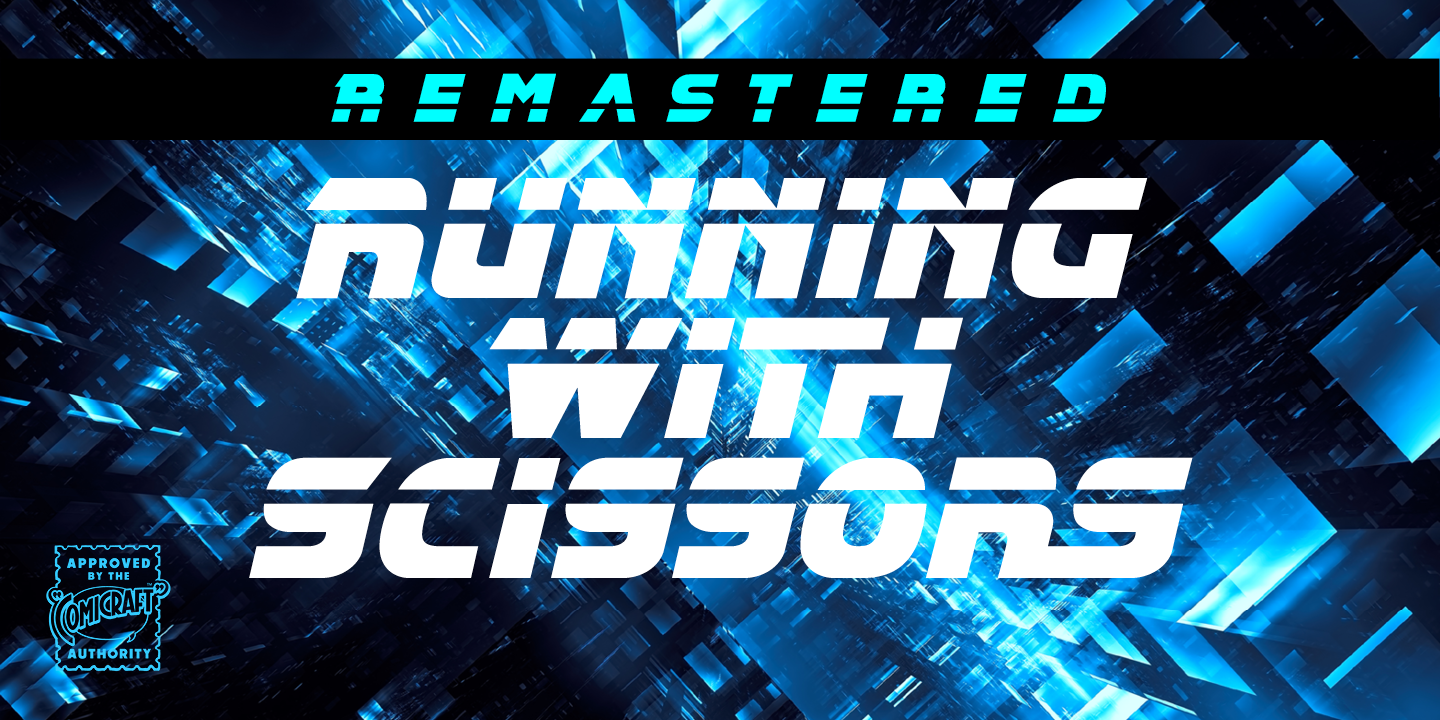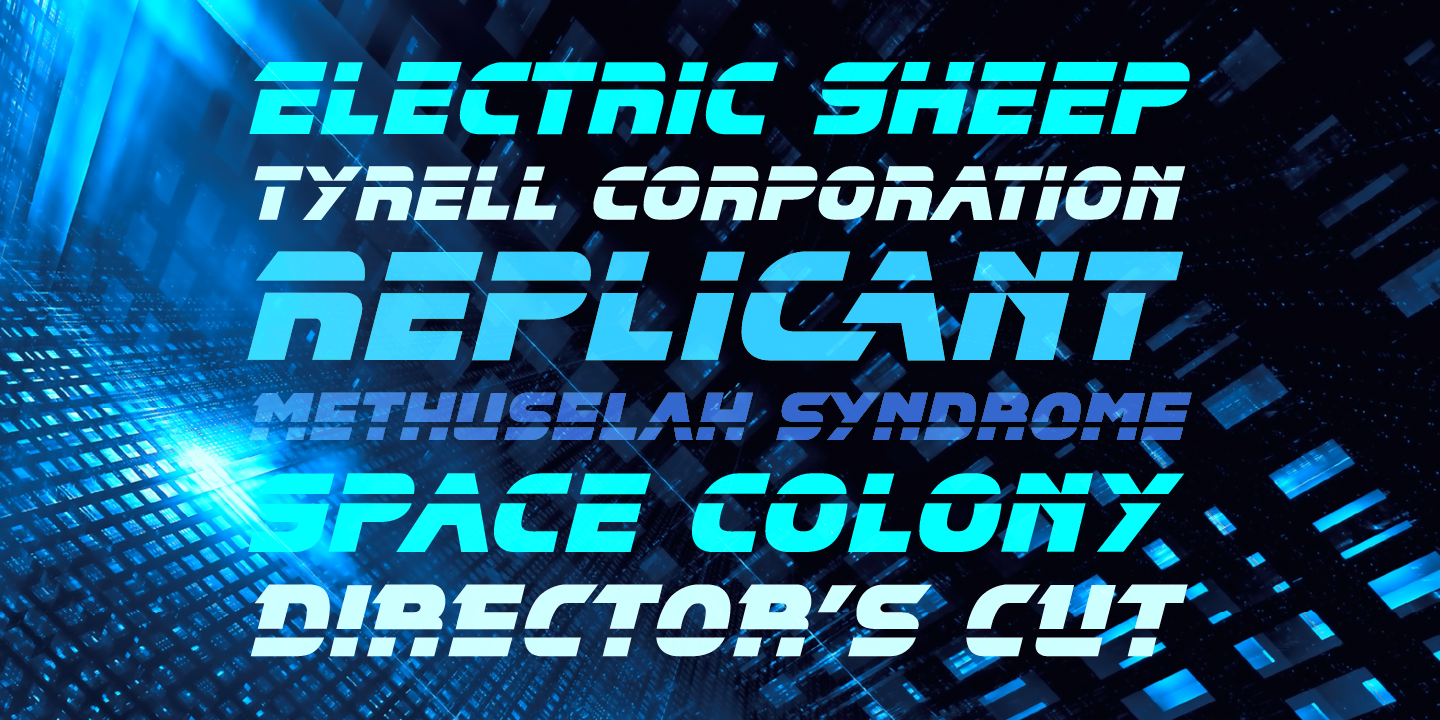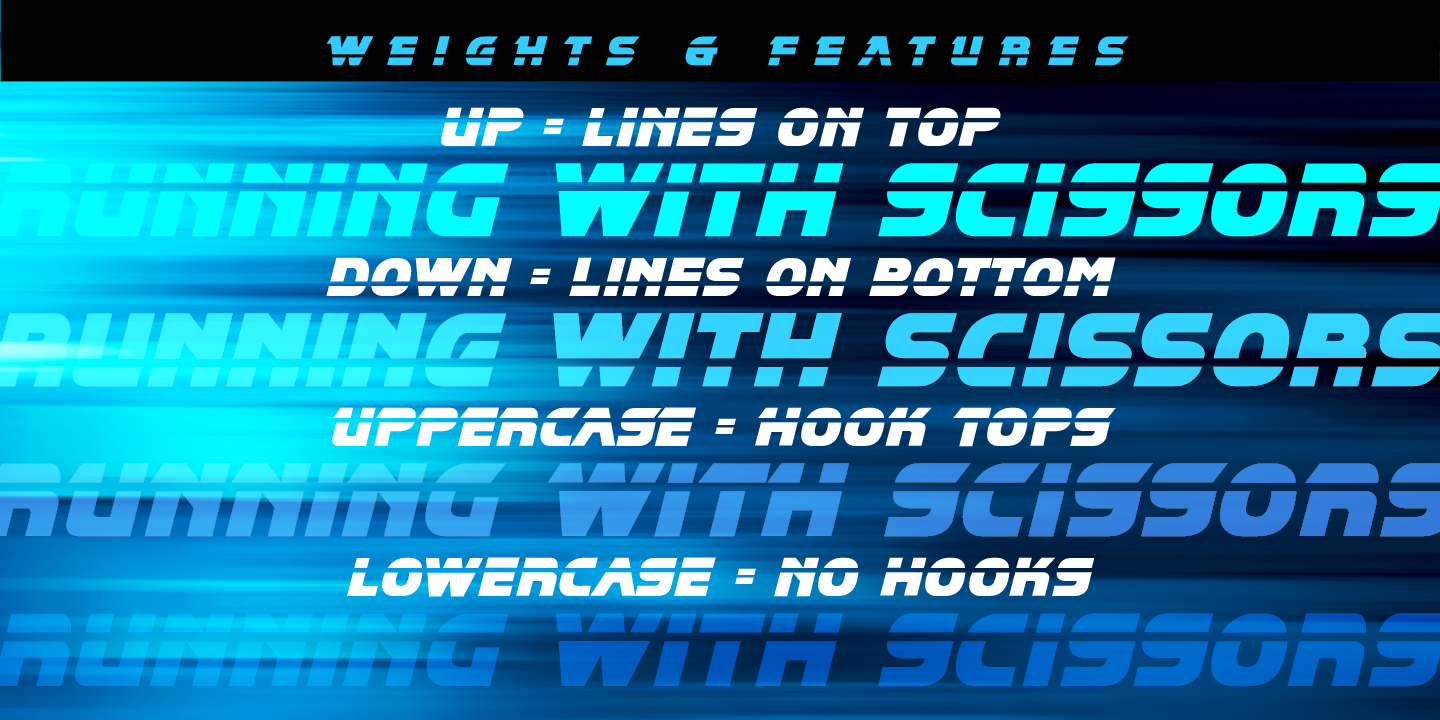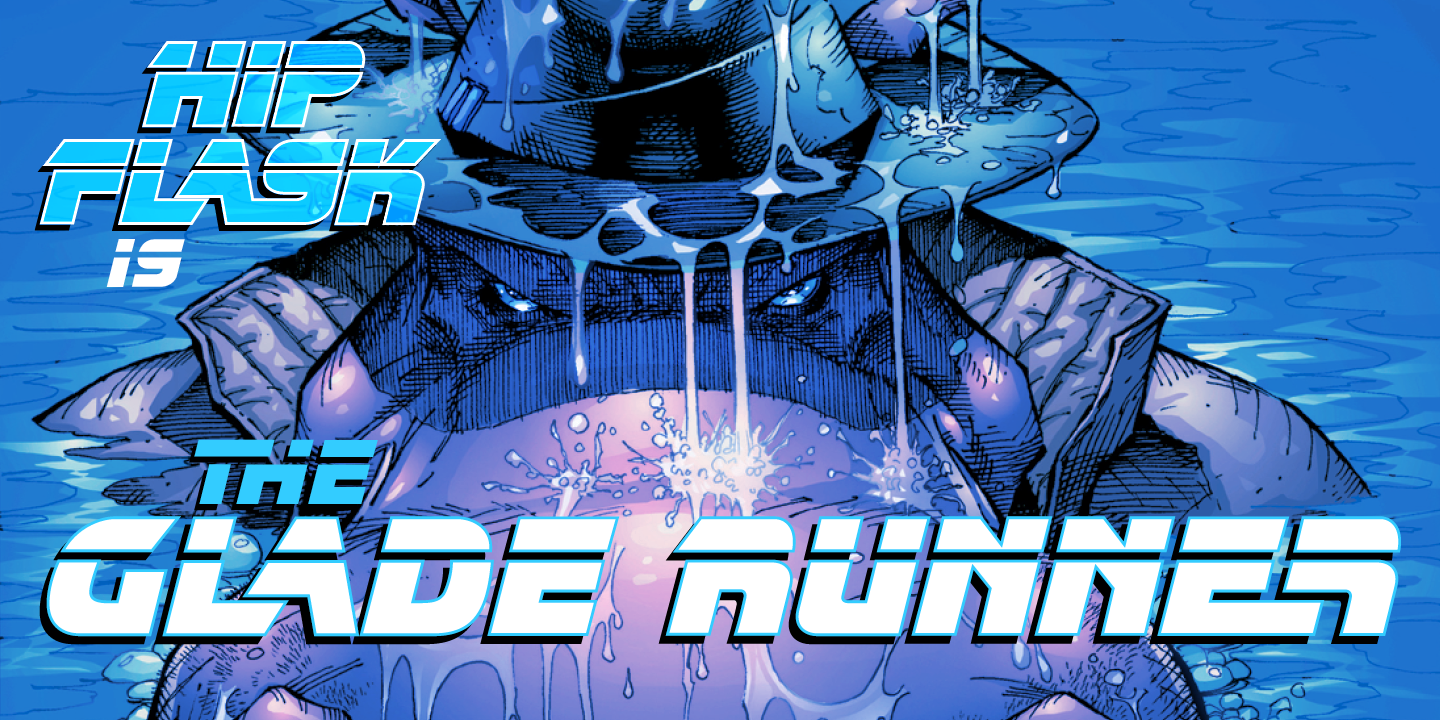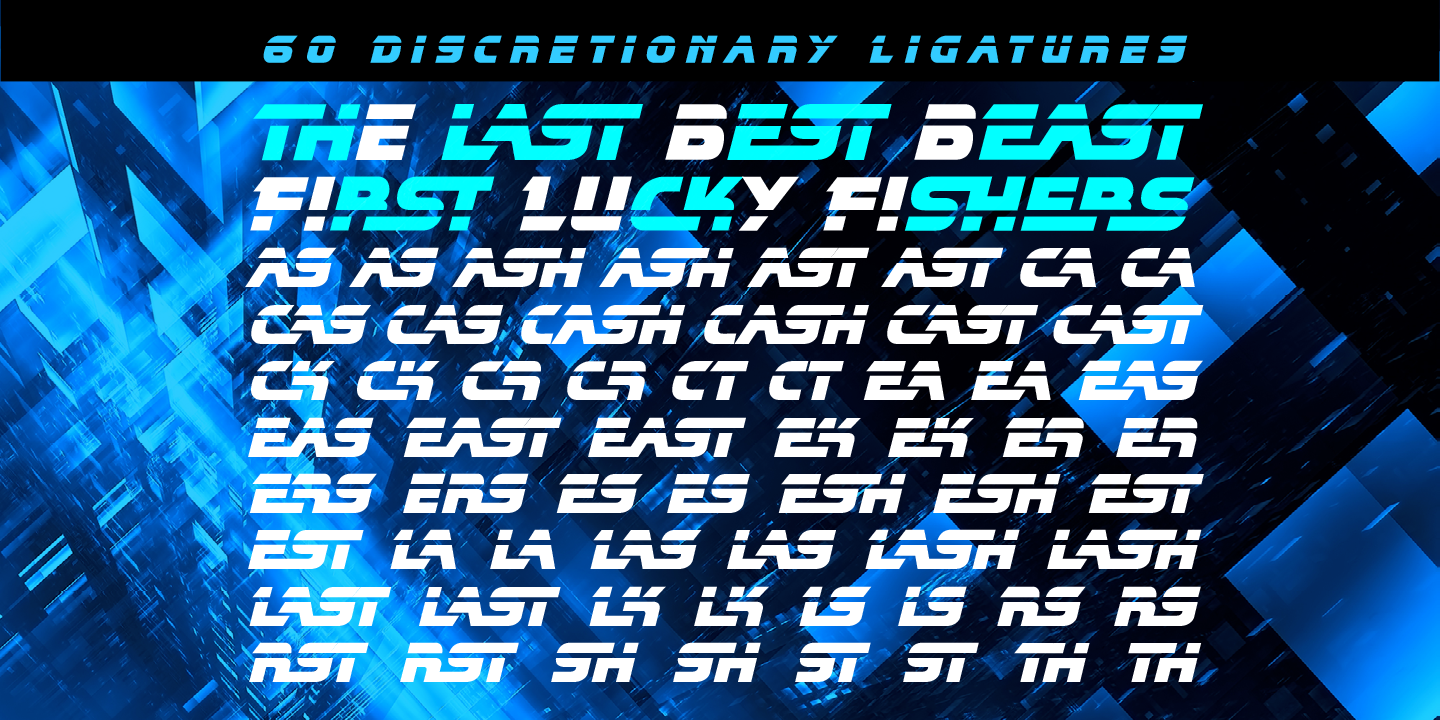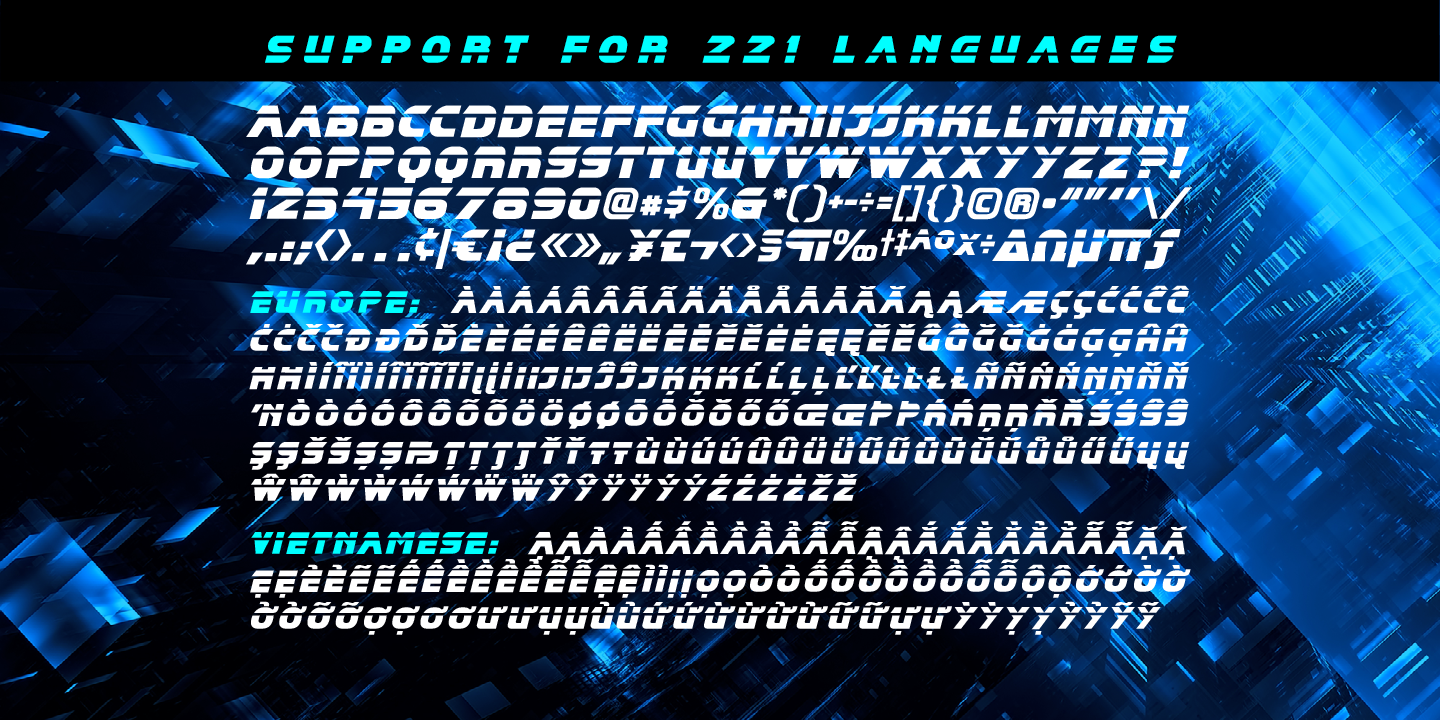
About the Running With Scissors Font
About Running With Scissors Font Family Your Mama told you not to do it, so you just KNOW this font will be good for you! In fact, you might say it’s a Cut Above the Rest. OUCH! Blade Runners: Be careful, you don’t want to retire a human by mistake…
Running With Scissors Font
Remastered Running With Scissors contains: Two weights with hook-topped uppercase and hookless lowercaseActivate “Discretionary Ligatures” to create perfectly futuristic sci-fi logos!support for 221 languages including Western & Central Europe and Vietnamese Designers: Richard Starkings, John RoshellPublisher: ComicraftFoundry: ComicraftDesign Owner: ComicraftMyFonts debut: Oct 26, 2005 Running With Scissors